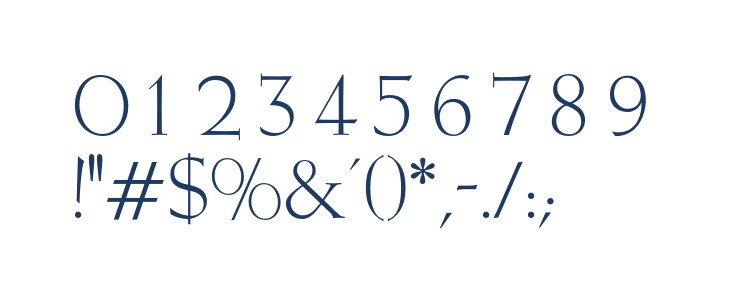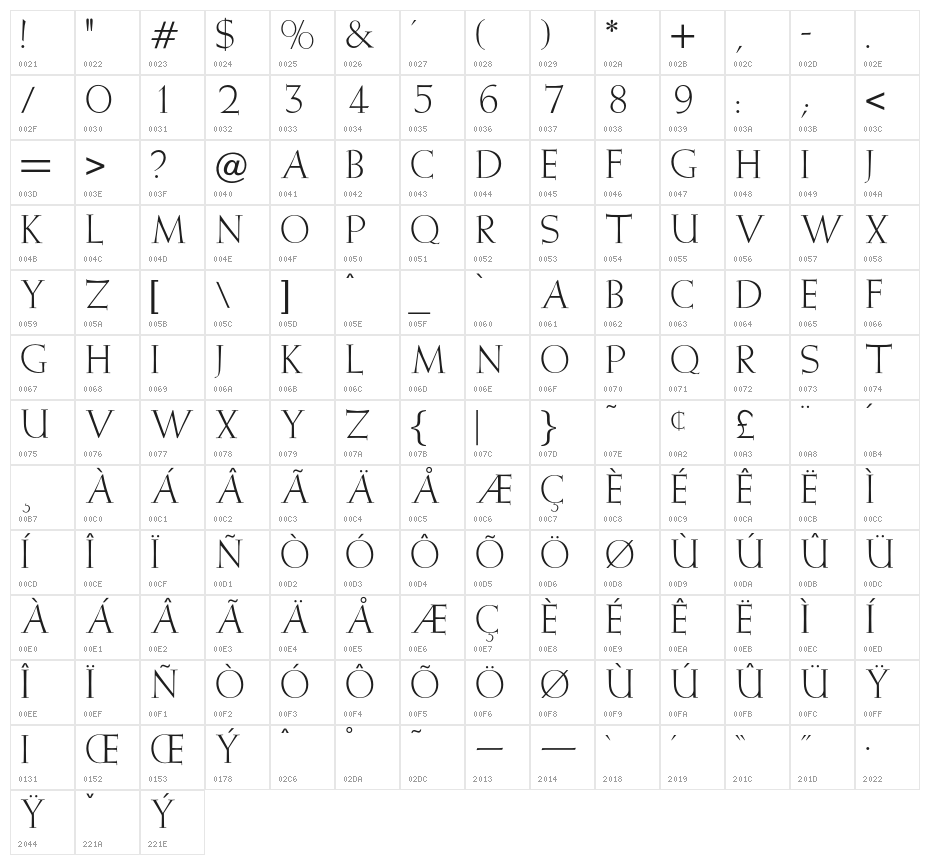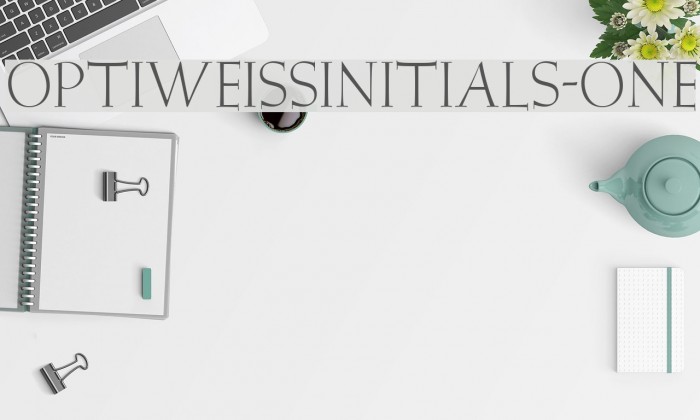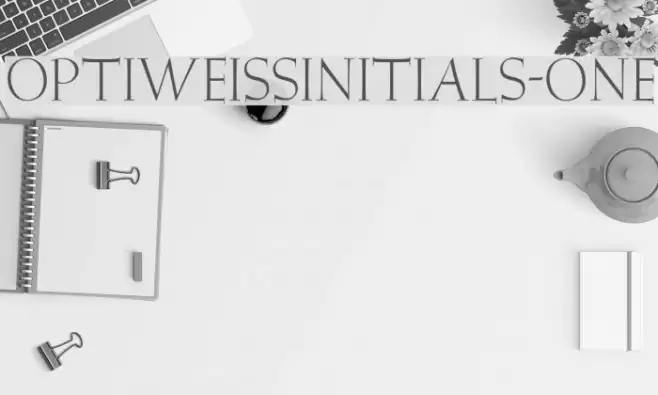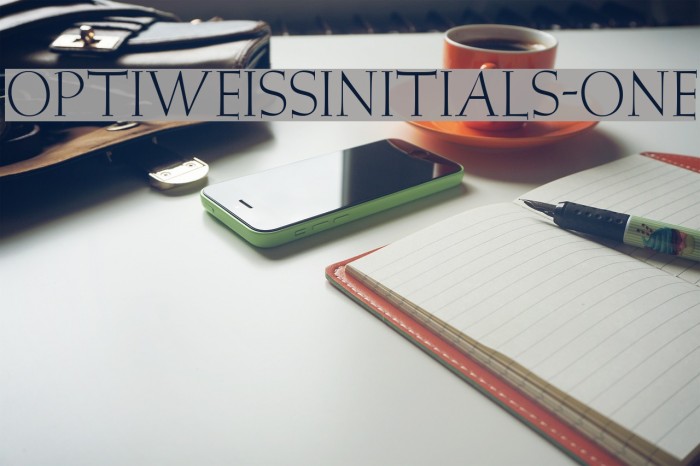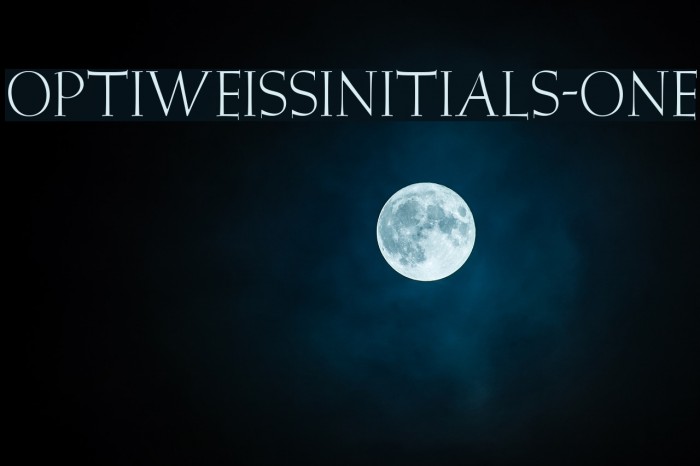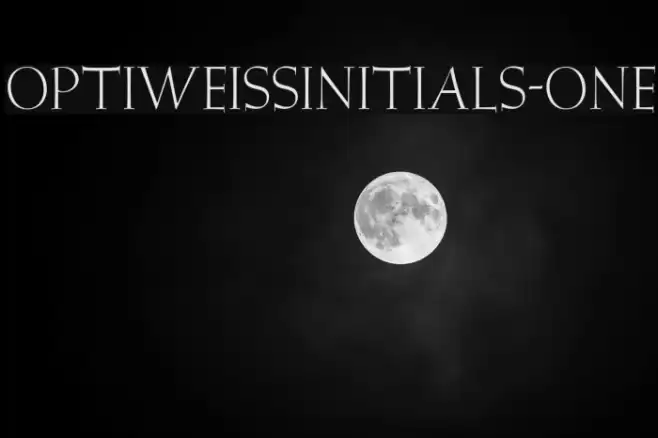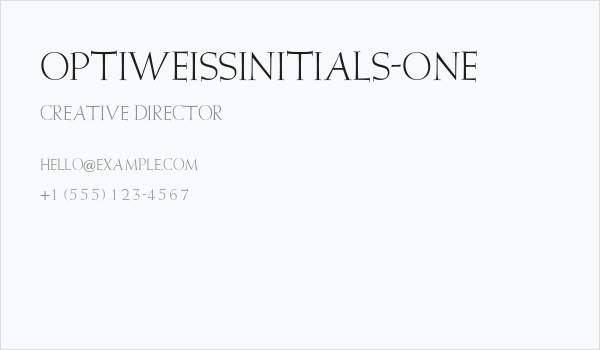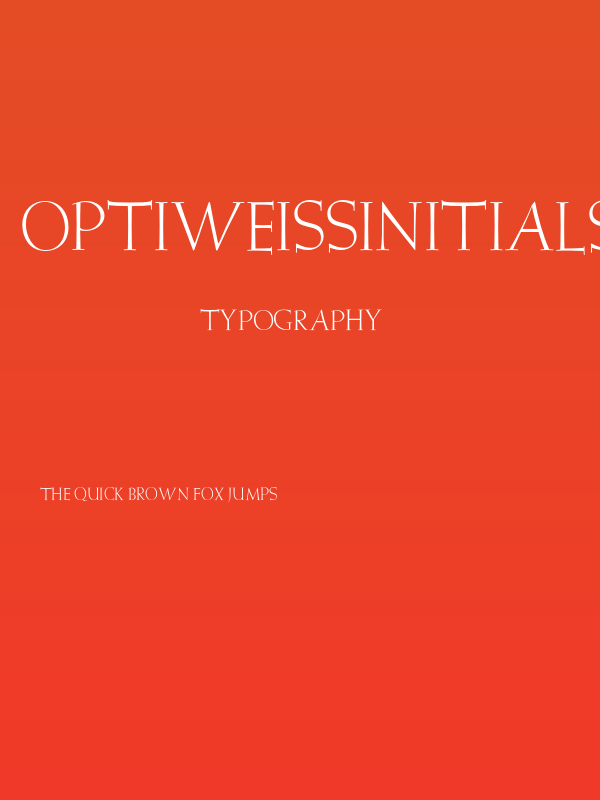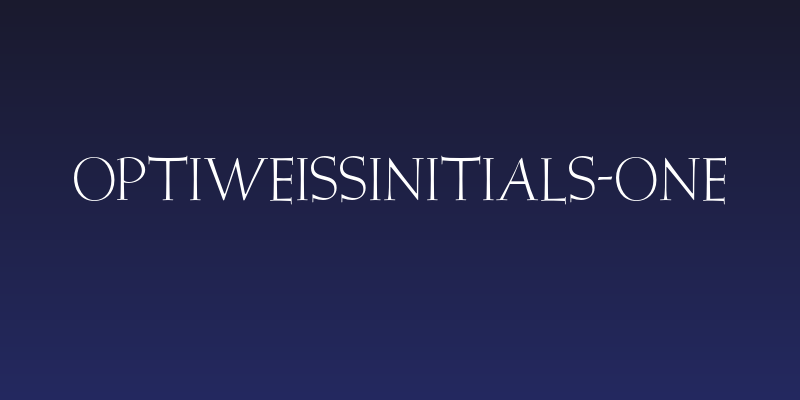
OPTIWeissInitials-One Font
OPTIWeissInitials-One Description
This font features elegant and refined letterforms with a classic serif style. The characters exhibit a high contrast between thick and thin strokes, giving them a sophisticated and timeless appearance. The serifs are sharp and pronounced, adding a touch of formality and grace. The uppercase letters are particularly striking, with a majestic and authoritative presence. The numerals and special characters maintain the same level of elegance, ensuring consistency throughout the typeface. This font is well-suited for projects that require a touch of class and tradition.
| Use Case | Headlines, Logos, Editorial design |
| Proposed Projects | Ideal for formal invitations, luxury branding, editorial design, and classic book covers. |